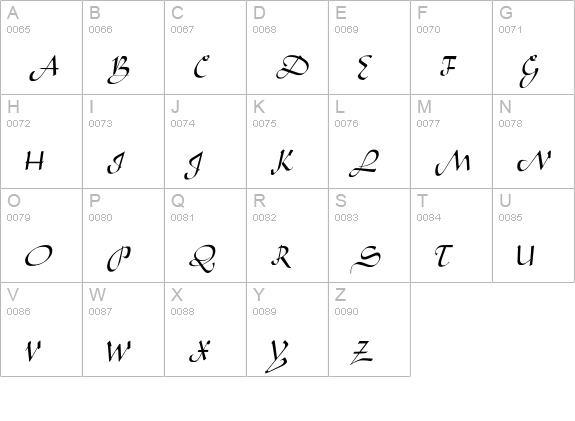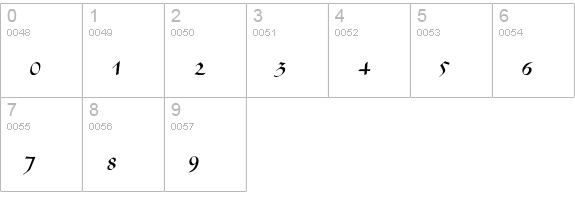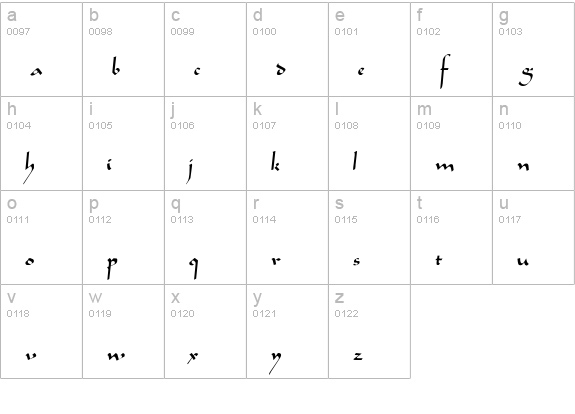
Arabian Font Details
Arabian Font is a stunning and elegant typeface that captures the essence of traditional Arabic calligraphy with a modern twist. This unique font features intricate details and graceful curves that make it perfect for adding a touch of sophistication to your designs. Whether you are working on a branding project, wedding invitation, or any other creative endeavor, Arabian Font will surely make a statement. Best of all, Arabian Font is available for free download at FontsMarket.com. This means you can easily access this beautiful font and use it in your projects without any cost. Don't miss out on this opportunity to enhance your designs with the beauty of Arabian Font. Download it today and let your creativity soar!